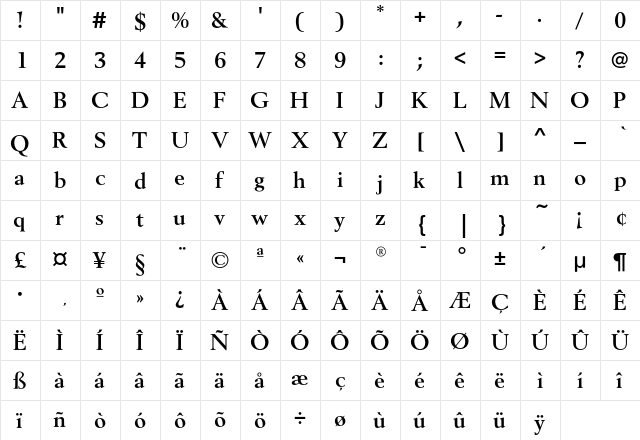
BerlingEF-Bold Regular
Design Context for BerlingEF-Bold Typeface
BerlingEF-Bold takes a measured approach to typography — its balanced proportions and neutral character make it a reliable workhorse for both digital and print work. The heavy weight commands attention and anchors typographic hierarchies.